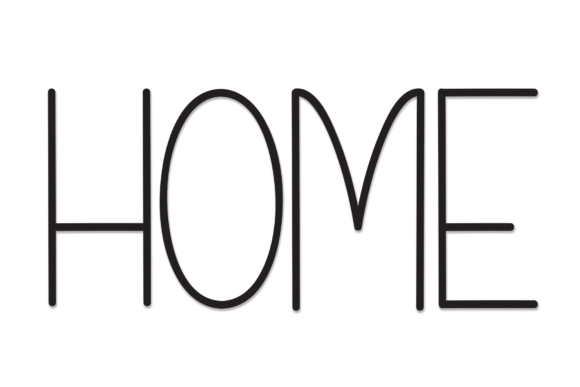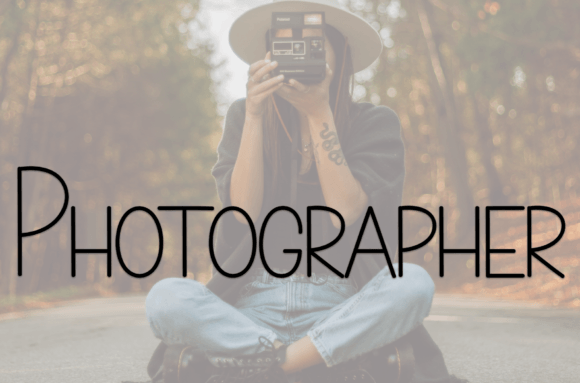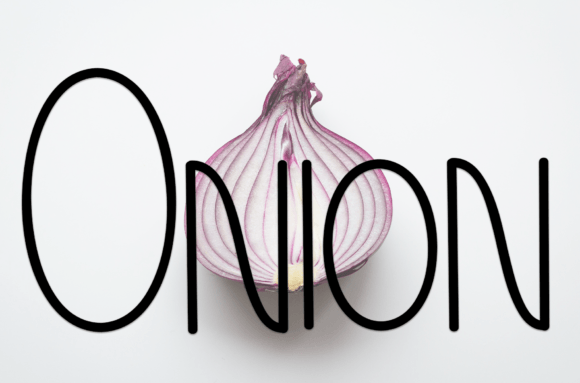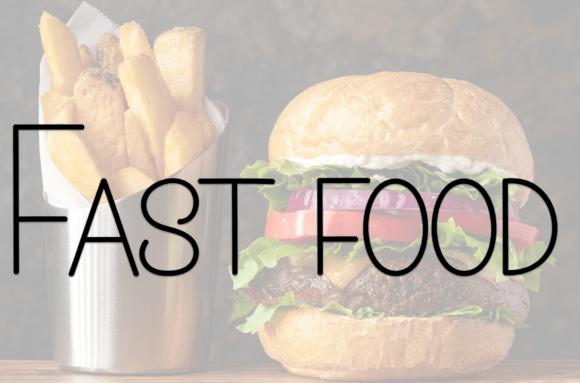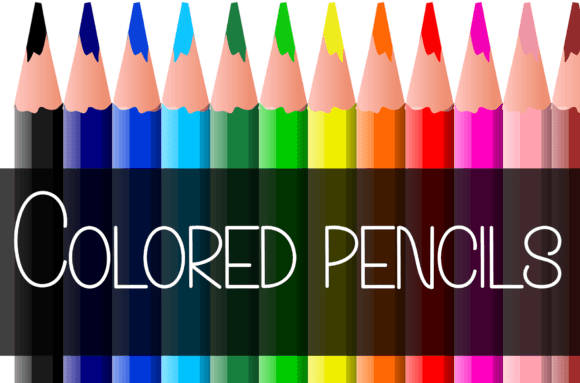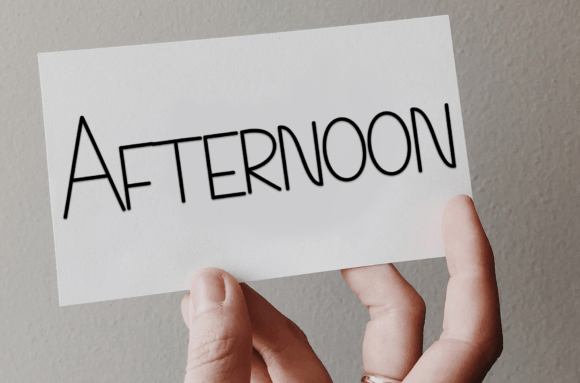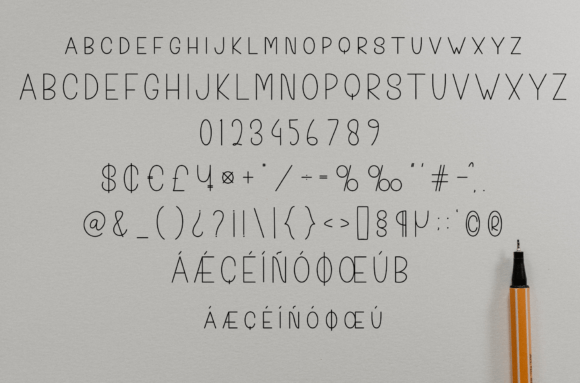
A Home Away from Ordinary Typography
There’s something magical about a well-designed font that immediately sets the tone for a project. For me, it’s the moment when a beautiful font comes together with a great idea that sparks a whole new world of possibilities. And that’s exactly what happens when you work with the Home Font.
This charming handwritten font is designed to evoke a sense of heartfelt perfection, with smooth strokes and organic lines that create a relaxed atmosphere. Whether you’re working on branding, invitations, or social media graphics, the Home Font is the perfect companion for your creative endeavors.
As a designer, you know how valuable a versatile and high-quality font can be. The Home Font is no exception – its unique charm and elegance make it an excellent addition to any design project, guaranteed to leave a lasting impression on your audience.
Key Features of Home Font
• Font Family: Home Font is a sans-serif font family designed for use in various digital applications.
• Font Size: The font family includes a range of weights from Extra Light to Extra Bold, with font sizes ranging from 8pt to 144pt.
• Unique Characteristics: Home Font features a clean and modern design, with subtle rounded edges and a friendly feel that makes it suitable for use in various contexts, including branding, advertising, and editorial content.
• Language Support: Home Font supports a wide range of languages, including Latin, Cyrillic, Greek, and many others, making it a versatile choice for global audiences.
Home Font Review
Overall, I was quite excited to dive into the Home Font, but my experience was a mix of both positives and negatives.
• The font’s aesthetic is modern and sleek, making it perfect for contemporary design projects.
• It has a good balance of elegance and approachability, which is suitable for a wide range of applications.
• The font family is quite extensive, offering various weights and styles to accommodate different design needs.
• Home Font’s web font support is seamless, allowing for smooth rendering across various devices.
• The font’s readability can be a concern, especially at smaller font sizes or in low-light environments.
• It may not be the best choice for projects requiring a more formal or traditional tone.
• The font’s x-height can be inconsistent across different weights, which may affect the overall typography.
Overall, I’d say Home Font is a solid choice for modern design projects that require a clean and approachable aesthetic. However, it may not be the best fit for projects with more formal or traditional requirements.
Home Font is a versatile font that works well for a variety of designs, from logos to brochures. To get the most out of it, use it in combination with other fonts to create a cohesive look. Experiment with different font sizes, colors, and styles to add visual interest to your design. You can also use Home Font in conjunction with graphics and images to create a unique and eye-catching design.
Home Font is suitable for a range of applications, including:
• Logo design
• Brochures and flyers
• Business cards
• Web design
• Print materials
Alternatives to “Home Font” for Designers
Open Sans is a clean, modern sans-serif font suitable for body text and headlines. It’s highly legible and works well for digital products, websites, and mobile apps. When to use: Open Sans is ideal for projects requiring a neutral, approachable tone.
Comparison: While Open Sans shares a similar sans-serif style with Home Font, it’s more versatile and adaptable across various devices and screen sizes.
What is the recommended font size for optimal readability with Home Font?
The recommended font size for optimal readability with Home Font is between 12 and 18 points. However, this can vary depending on the specific application and the desired visual style. It’s always a good idea to test the font at different sizes to find the optimal setting for your design.